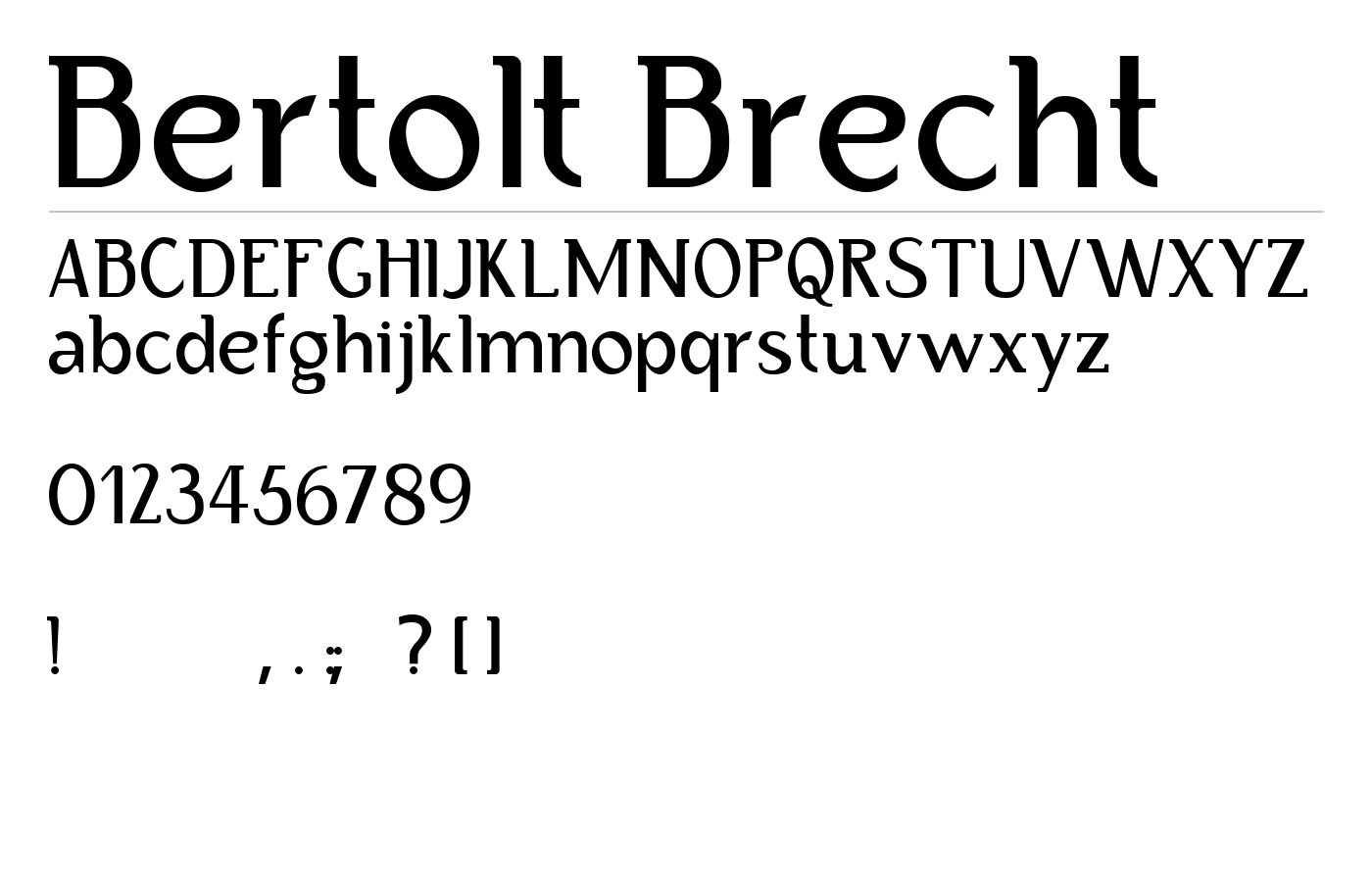
Bertolt Brecht is a distinctive serif font with a modern, slightly condensed structure and a notable contrast between thick and thin strokes, lending it a refined yet approachable character. Its sharp, bracketed serifs and unique letterforms give it an artistic, vintage flair that works well for editorial designs, theatrical posters, and sophisticated branding. This font combines elegance with readability, making it ideal for headlines and display use where a touch of personality and classic style is desired.
Bertolt Brecht Font